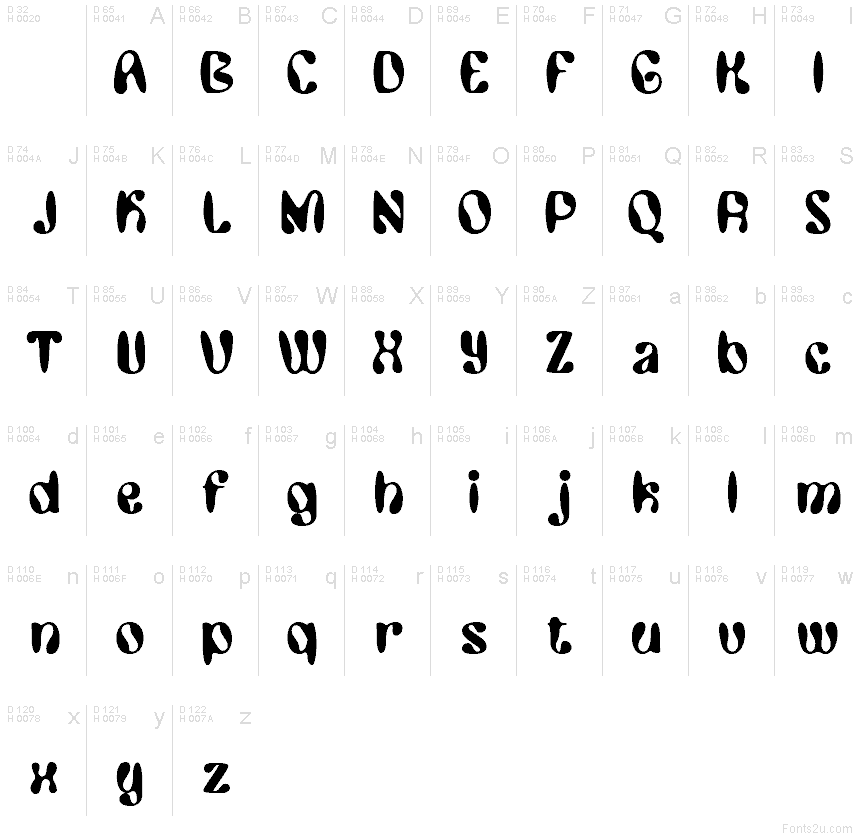
CSArgieDrawn-Regular Demo
CS Argie Drawn font was designed by Craft Supply Co. as part of the CS Argie font family collection. The unique retro-inspired display typeface provides an expressive touch to any text, increasing its overall artistic flair. Use its truly eye-catching characters for your next typography masterpiece.